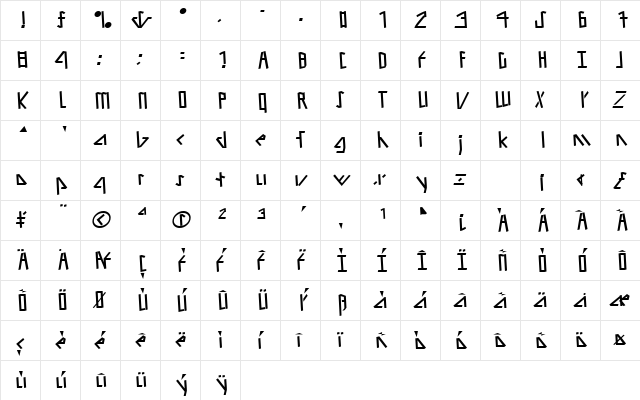
LoblowSSK Regular
Design Context for LoblowSSK Typeface
LoblowSSK is a composed and adaptable typeface that performs quietly and consistently across a wide range of design contexts.